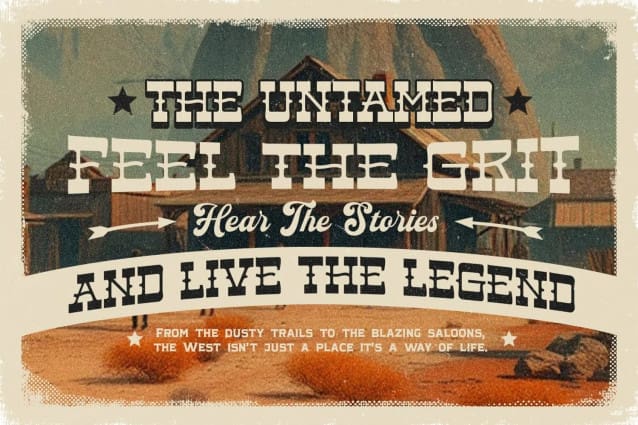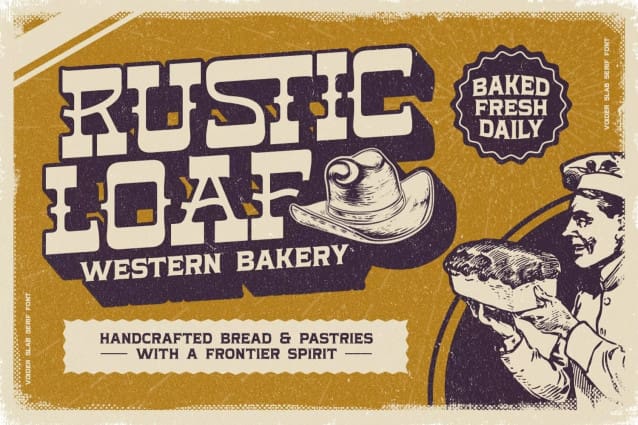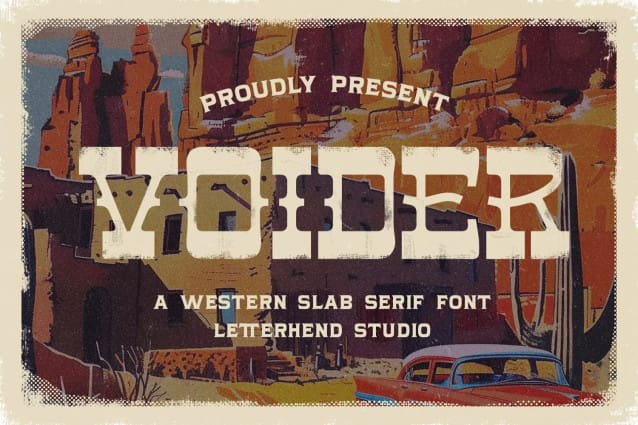
Voiger Western Font
Voiger Western Font a bold and versatile slab serif font designed to capture the essence of vintage Americana. Perfect for posters, logos, packaging, and any project that needs a dash of retro adventure, Voider brings character and grit with its distressed details and striking letterforms.